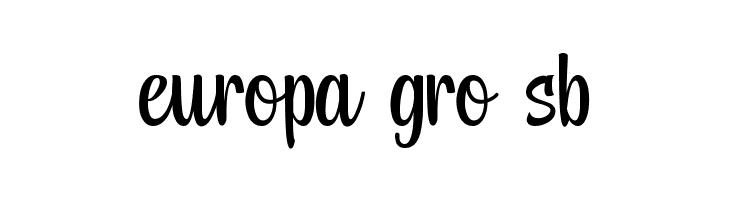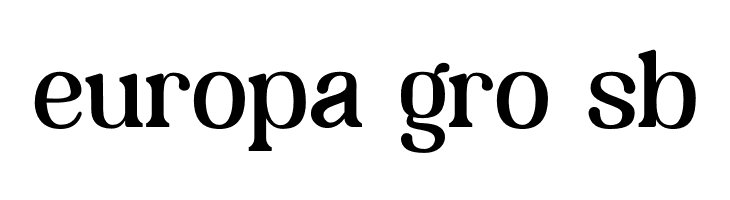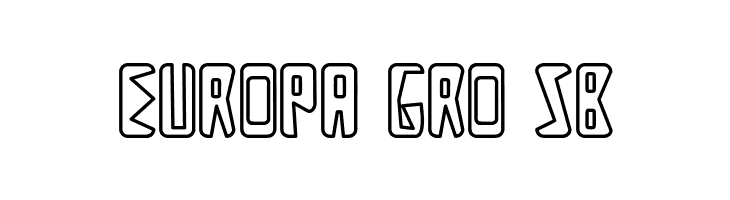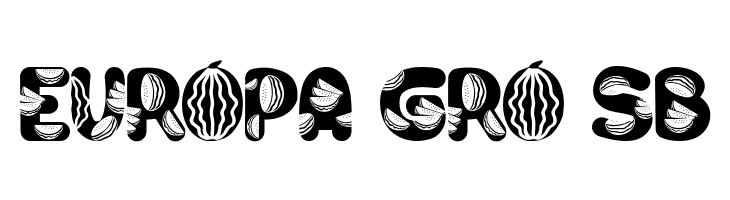
A playful, handwritten-style font with bold, slightly slanted characters.
A classic serif font with elegant, pronounced serifs and a timeless appearance.
A dynamic and flowing script font with elegant cursive letterforms.
An elegant script font with flowing cursive and intricate swashes.
An elegant, flowing script font with a handwritten style.
An elegant, flowing script font with delicate, continuous strokes.
A graceful, handwritten script font with flowing, connected letters.
A bold, angular font with a zigzag design and outlined lowercase letters.
A bold, decorative font with watermelon slice patterns in each character.
A flowing, cursive font with elegant, interconnected letters and a handwritten style.